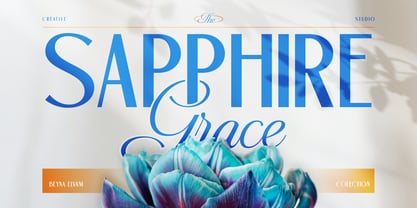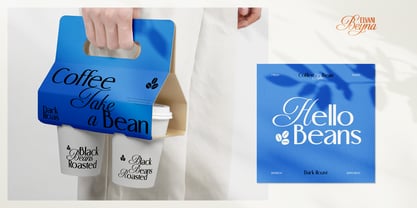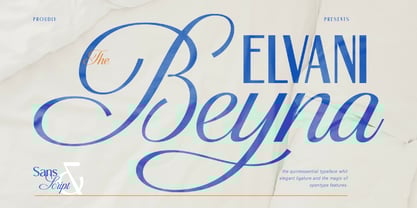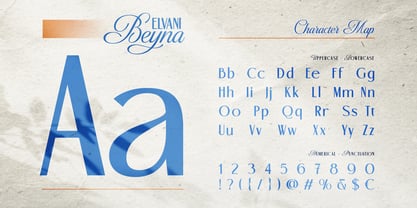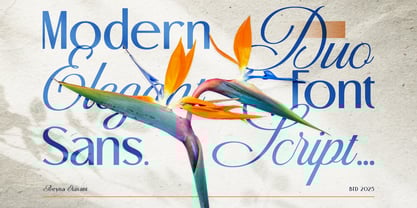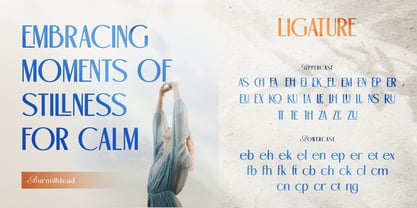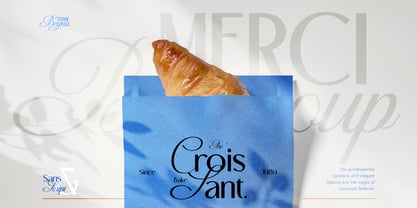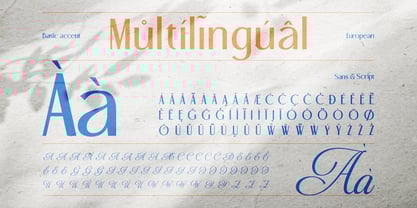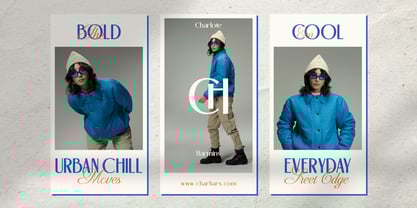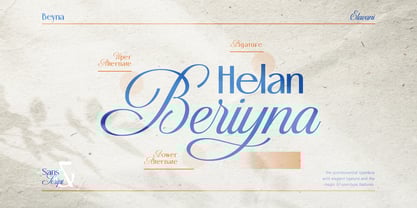
Beyna Elavani
The Beyna Elavani Font Family was designed by Eric Kurniawan and published by Burntilldead. Beyna Elavani contains 2 styles and family package options. More about this family
If you’re looking for a font duo that feels both classy and modern, Beyna Elvani is here to impress. This typeface combines two beautiful styles in one: Beyna, a flowing and graceful script font, and Elvani, a clean and stylish sans serif. Together, they create the perfect balance between sophistication and readability.
From the first glance, Beyna brings a touch of romance with its smooth curves, delicate ligatures, and elegant flow. It’s perfect for logos, wedding invitations, branding, and anything that needs a luxurious handwritten feel. On the other hand, Elvani grounds the design with its sharp lines and minimal sans serif style, making it versatile for modern layouts, headlines, and body text.
What makes Beyna Elvani special is how seamlessly these two styles complement each other. You can pair the script for highlights or names, while the serif keeps your design neat and professional. It’s like having two fonts that were truly made for each other.
Whether you’re designing for fashion, lifestyle, beauty brands, or editorial projects, Beyna Elvani font duo gives you the flexibility to create designs that feel timeless yet trendy.
Features:
• A - Z set (Uppercase & Lowercase)
• Number
• Punctuation
• Alternate
• Ligature
• Multilingual